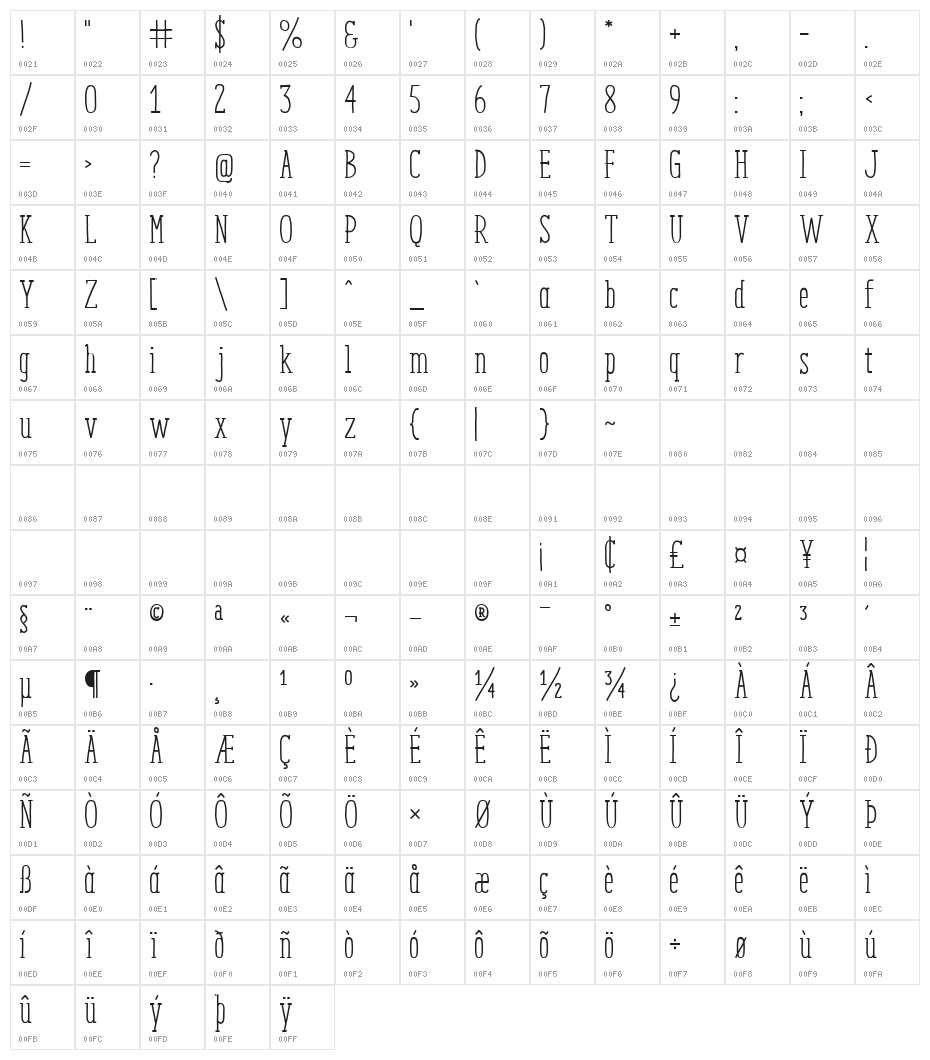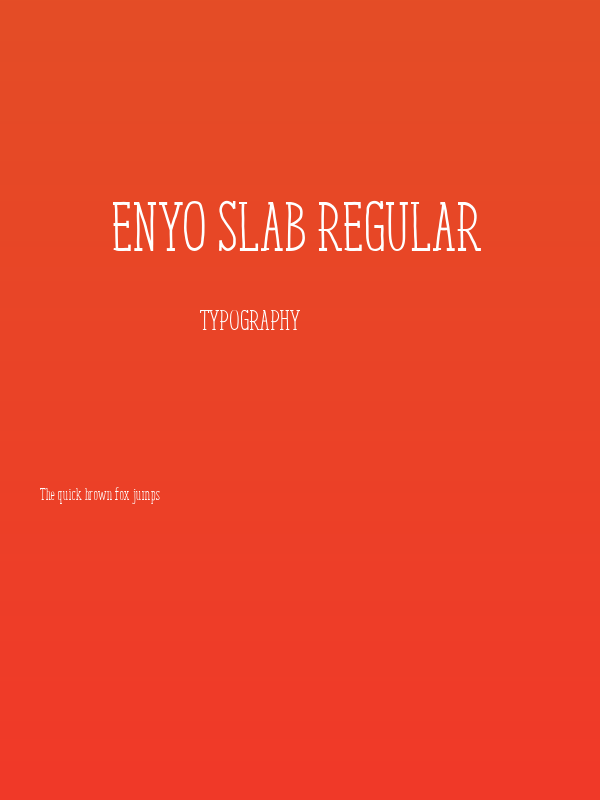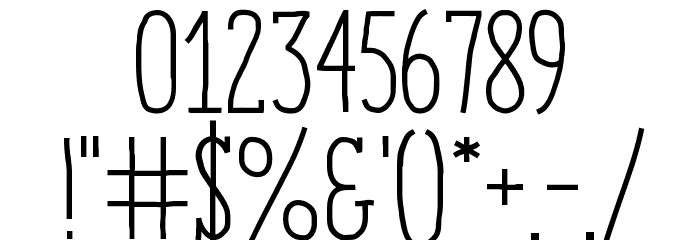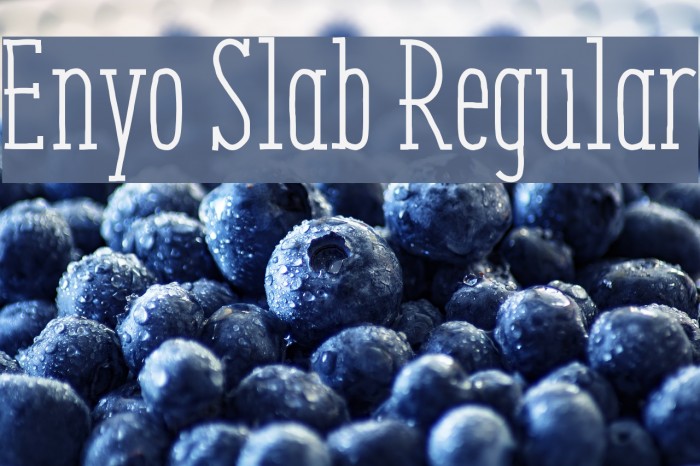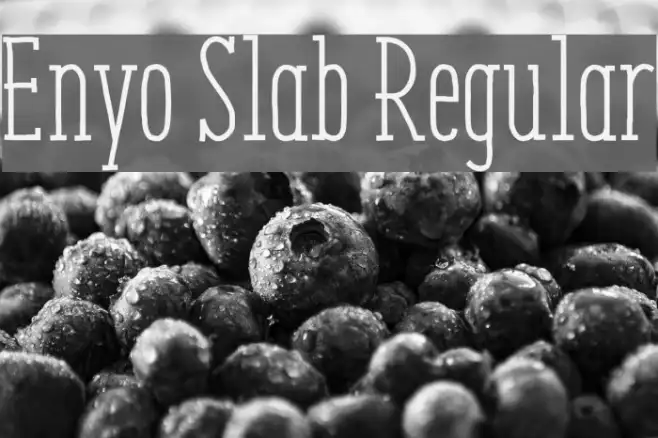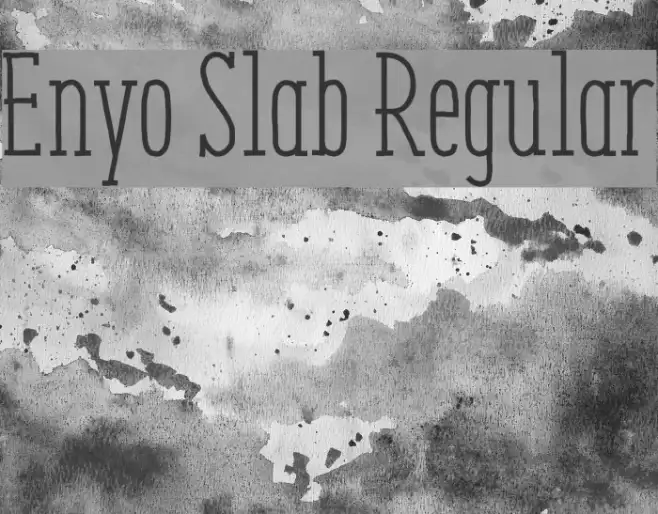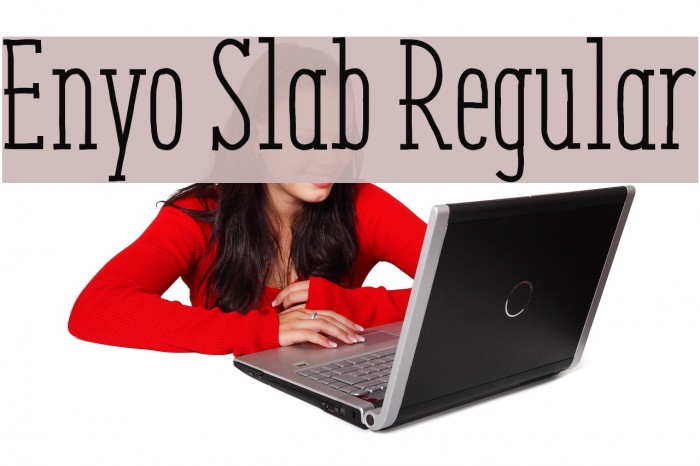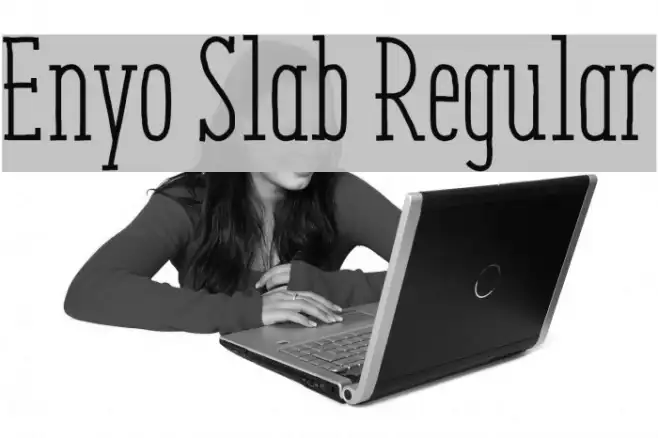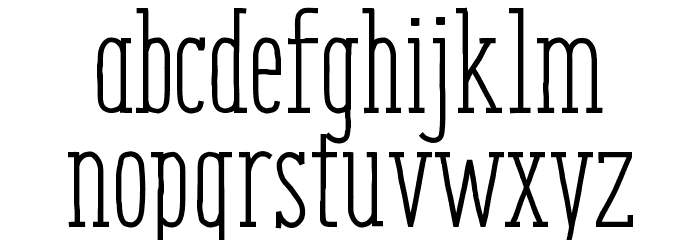
Enyo Slab Regular Font
Enyo Slab Regular Description
This font features a distinctive slab serif style with a modern twist. The characters are tall and narrow, giving it an elegant yet robust appearance. The serifs are prominent and slightly curved, adding a touch of sophistication. The uppercase letters are uniform in height, while the lowercase letters maintain a consistent baseline with slight variations in ascender and descender lengths. The numerals are clear and legible, matching the overall aesthetic of the font. The special characters are well-integrated, maintaining the font's cohesive look. This typeface is versatile, suitable for both digital and print media, offering a unique blend of traditional serif elements with a contemporary edge.